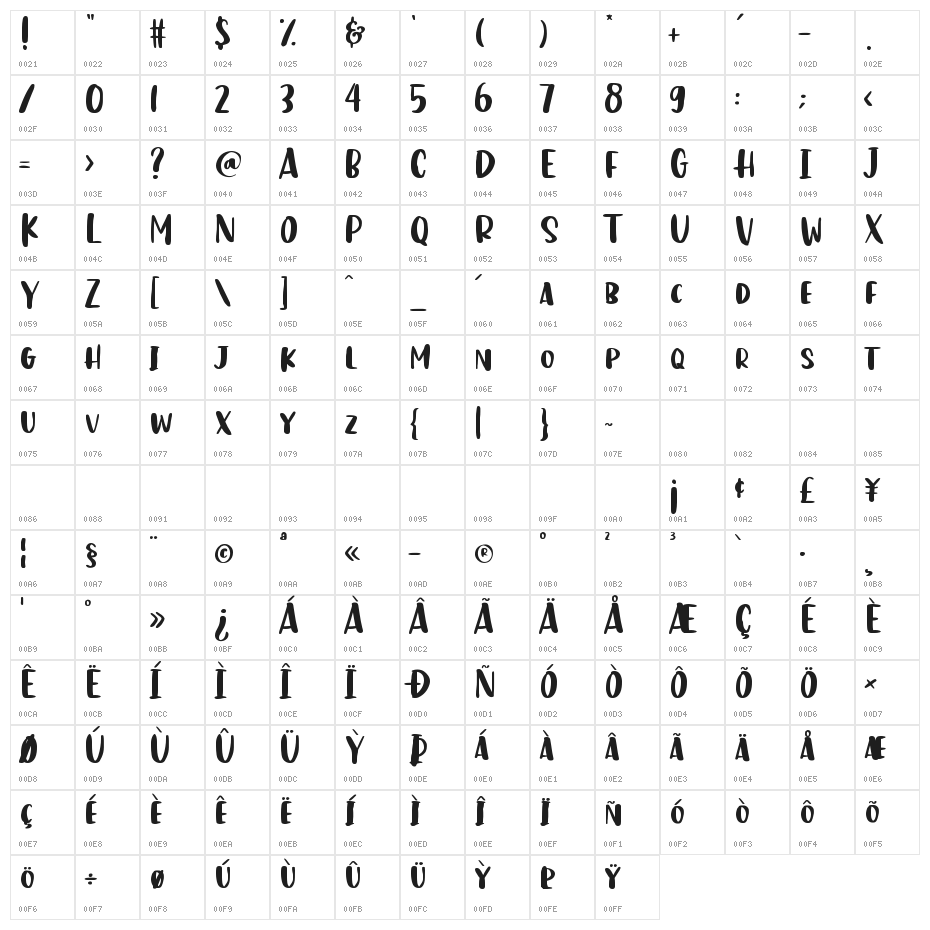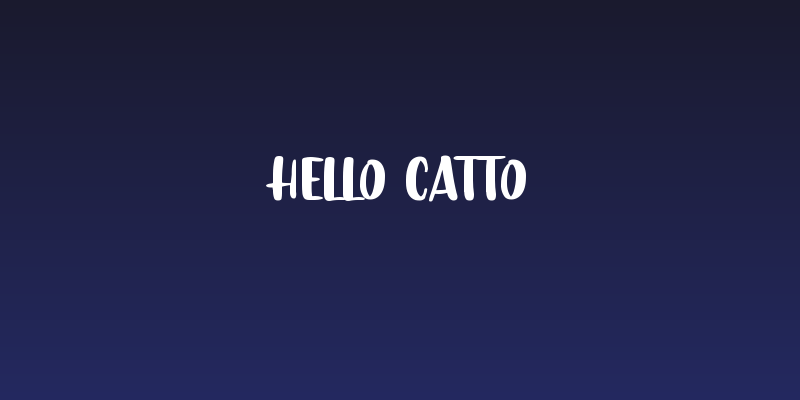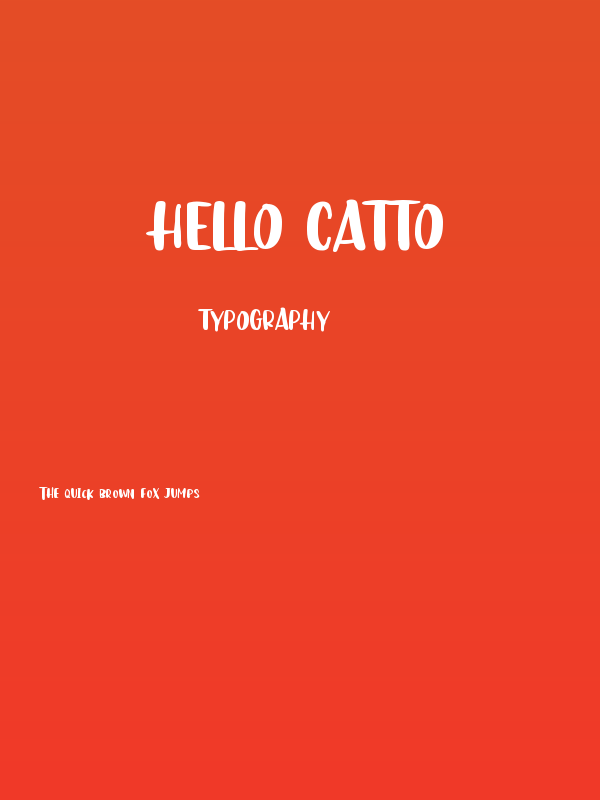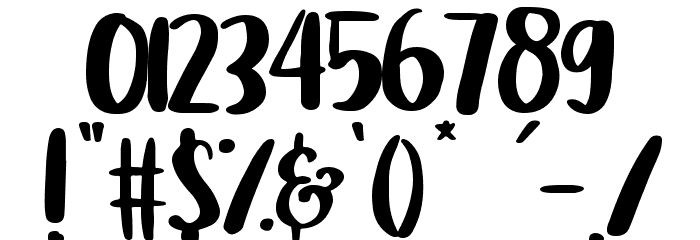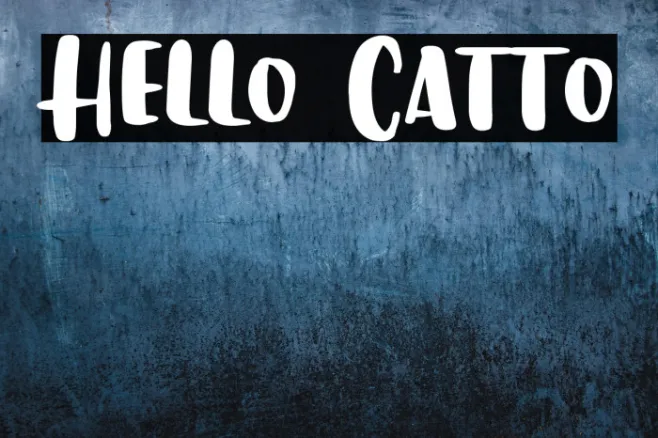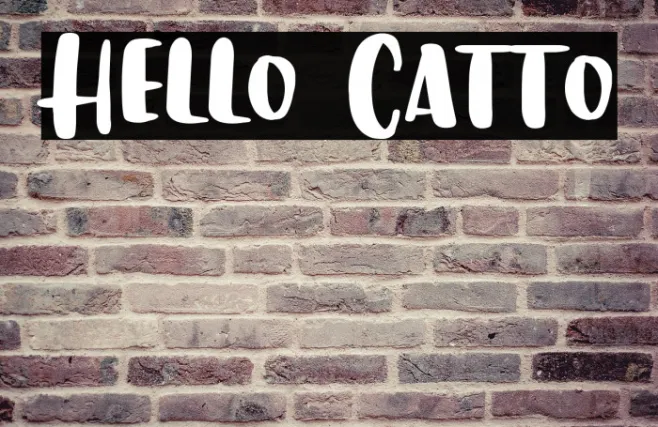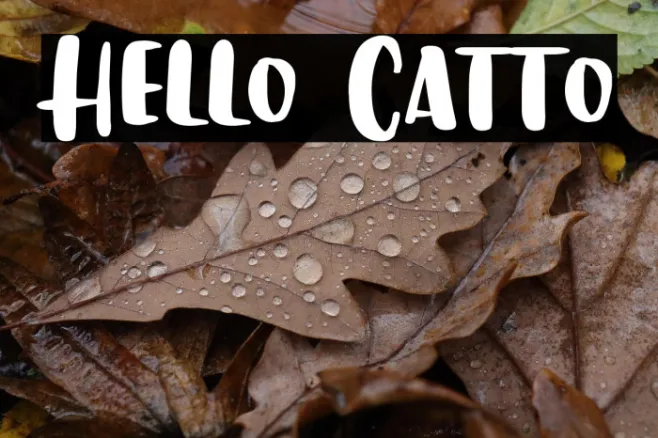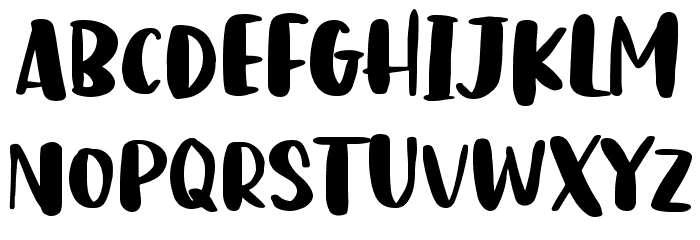
Hello Catto Font
Hello Catto Description
This playful and bold font features a handwritten style with a lively and energetic appearance. The letters are thick and slightly irregular, giving them a casual and friendly look. The uppercase and lowercase characters maintain a consistent style, with rounded edges and a slight slant that adds to the informal feel. The numbers and special characters are equally bold and expressive, making them stand out. This font is perfect for projects that require a personal touch and a sense of fun.
| Overall Style | Playful, Casual, Energetic |
| Proposed Projects | Ideal for greeting cards, children's books, playful branding, and social media graphics. |